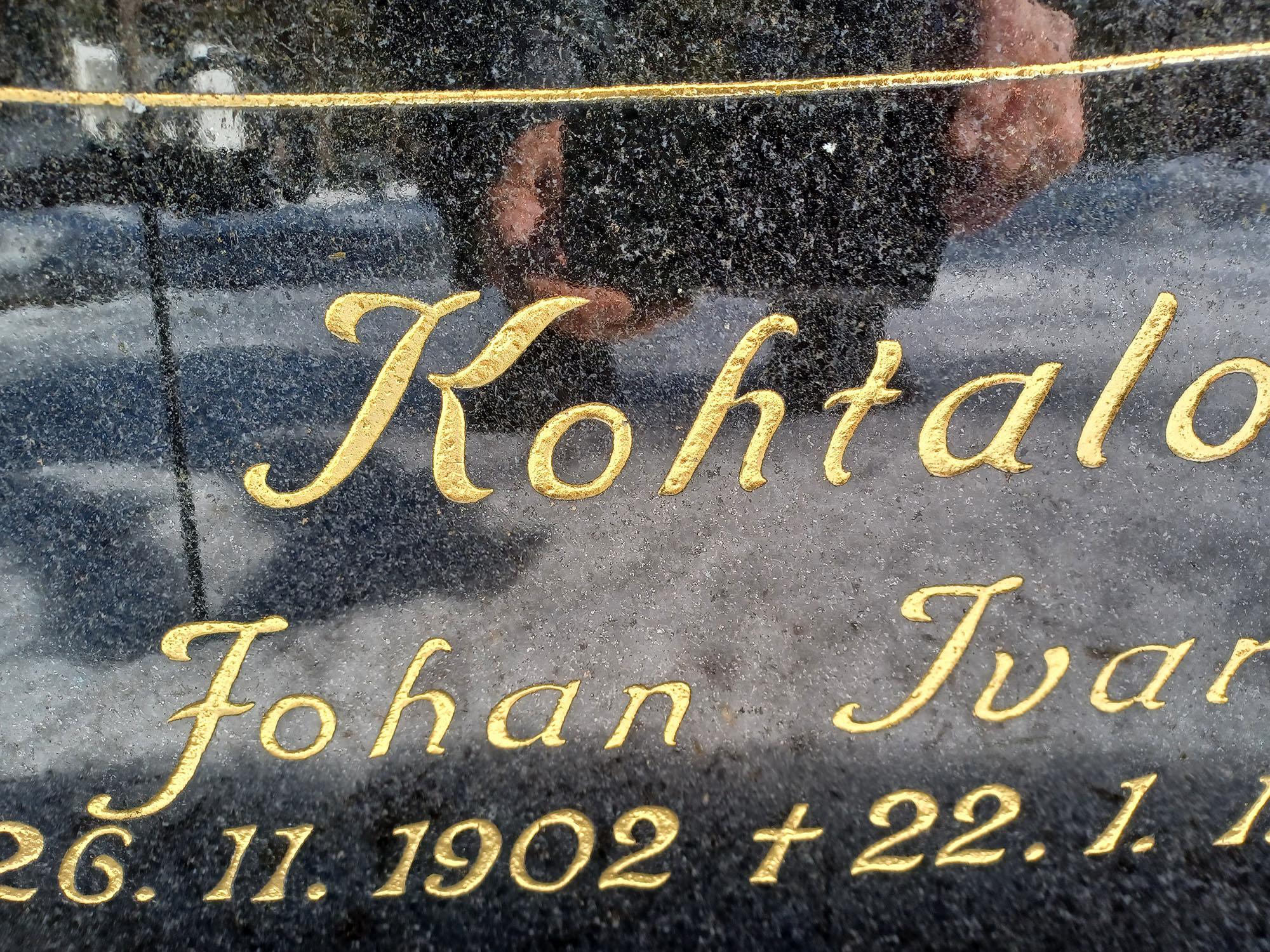
Script-ish font
Any idea what might have been the base for this font?
Hi Teemal, it looks like it is loosely based on a font called Nabuco Bold: https://www.myfonts.com/fonts/ominetype/nabuco/bold/
However, the numerals are entirely different. It is possible they are both based on an earlier existing font.